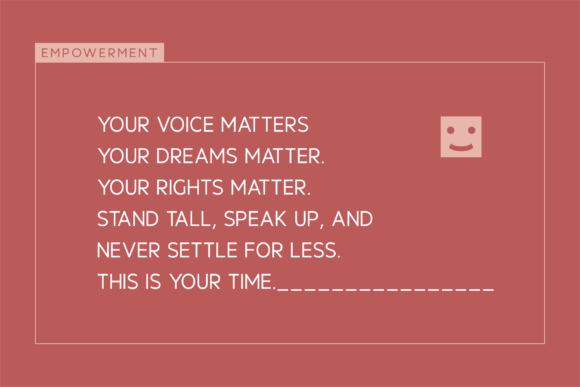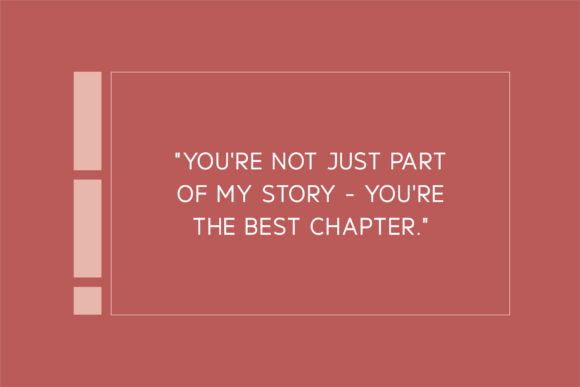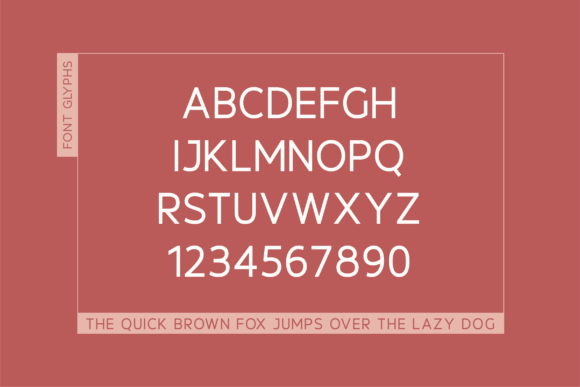
Introduction to Reflections Font
As a designer, you know the thrill of hitting the perfect note in a creative project. It’s that moment when all the elements come together in harmony, and your message shines through with clarity and impact. For me, that moment often starts with the right font – one that can elevate my design and make it truly unforgettable. That’s why I’m excited to introduce you to Reflections Font, a modern sans serif typeface that’s about to revolutionize the way you approach your next project.
With its bold, all-caps design and minimalist aesthetic, Reflections Font is the perfect tool for designers who want to make a statement. Its clean lines, geometric structure, and sharp edges ensure versatility, from digital interfaces to high-end branding. Whether you’re designing a logo, website, or print material, Reflections Font is a design resource that will take your creative project to the next level.
Key Features of Reflections Font
• Unique, hand-drawn design elements for a creative project
Honest Review: Reflections Font
I recently stumbled upon the Reflections Font, a free download that caught my eye for its sleek and modern design. As a designer, I appreciate high-quality design resources that can elevate my creative projects.
The Reflections Font comes with a transparent background, making it easy to layer and blend with other design elements. I love how versatile it is, suitable for a wide range of design applications from branding to editorial work.
Here are some things that work well:
• ✨ Beautiful and modern design aesthetic
• ✨ High-quality fonts with smooth lines and crisp details
• ✨ Easy to customize and manipulate
• ⚠️ Limited character set, which may not be suitable for longer text-based projects
• ⚠️ May require some tweaking to achieve the perfect opacity and layering effect
Overall, I’m impressed with the Reflections Font’s potential and versatility. While it may have some limitations, it’s a great design resource for creative projects that require a touch of modern sophistication.
Tips for Getting the Most Out of Reflections Font
Experiment with different font sizes and styles to achieve the desired effect. Use the font with a transparent background to create a stunning design element. Combine the font with other design elements, such as images or shapes, to add depth and interest to your design.
The Reflections Font is ideal for a variety of creative projects, including logos, business cards, and presentations. It’s also a great choice for adding a touch of elegance and sophistication to your website or blog.